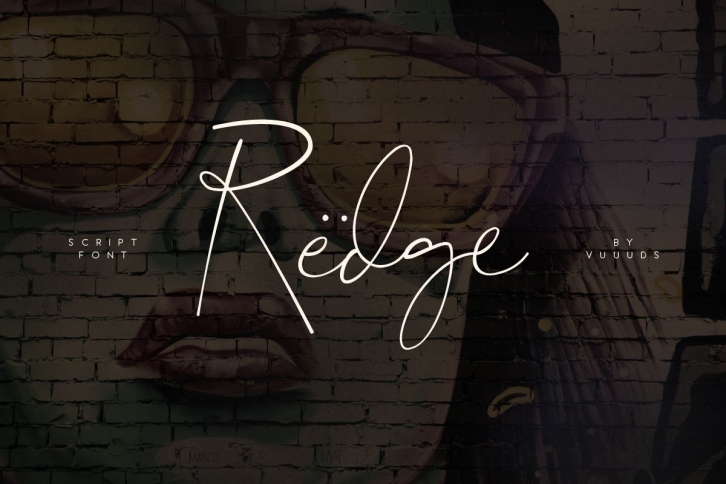
Redge Script is modern feminine font, every single letters have been carefully crafted to make your text looks beautiful. With modern script style this font will perfect for many different project ex: photography, watermark, quotes, blog header, poster, wedding, branding, logo, fashion, apparel, letter, invitation, stationery, etc.
Ligature & alternate glyph: a ad af al ar as at b bl c ch ck cl ct db e ed ef el ff ft g gh h ht i id if ih il it k l lk ll m n nt ob of ot pl r sh sk sl ss st t tt u ub ut wh y
Foreign languages support: ÀÃÂÃÄÅÆÇÈÉÊËÌÃÃŽÃÃÑÒÓÔÕÖØÙÚÛÜÃßà áâãäåæçèéêëìÃîïðñòóôõöøùúûüýÿ